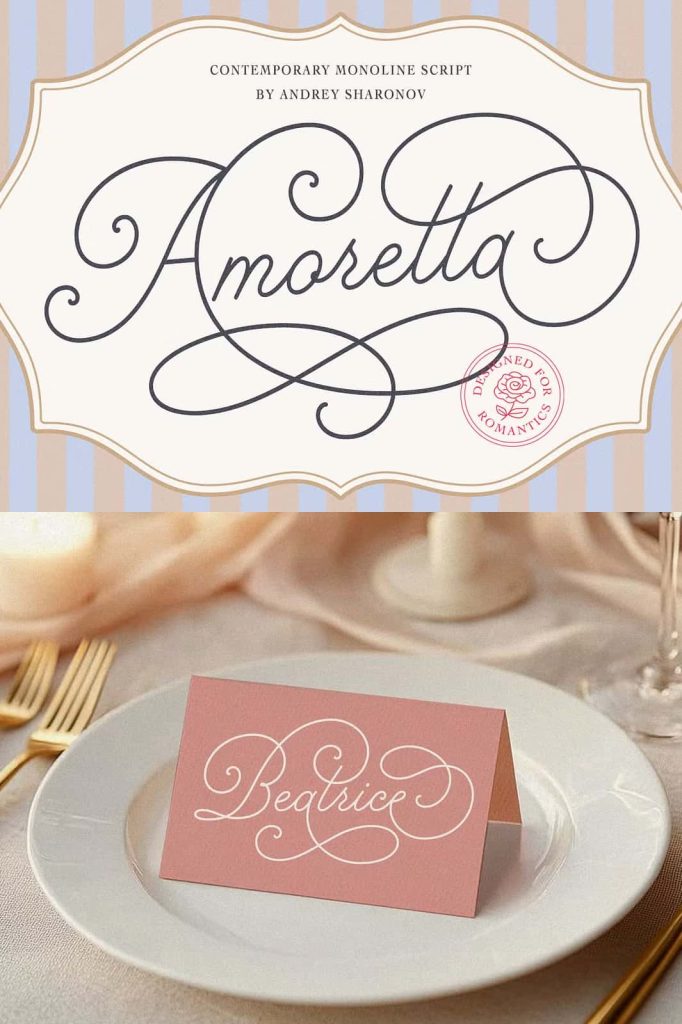
Amoretta is contemporary monoline script font created to inspire charm and sophistication in your design projects. Featuring a wide range of alternates with sweeping strokes, it gives you possibility to craft unique and expressive lettering compositions.